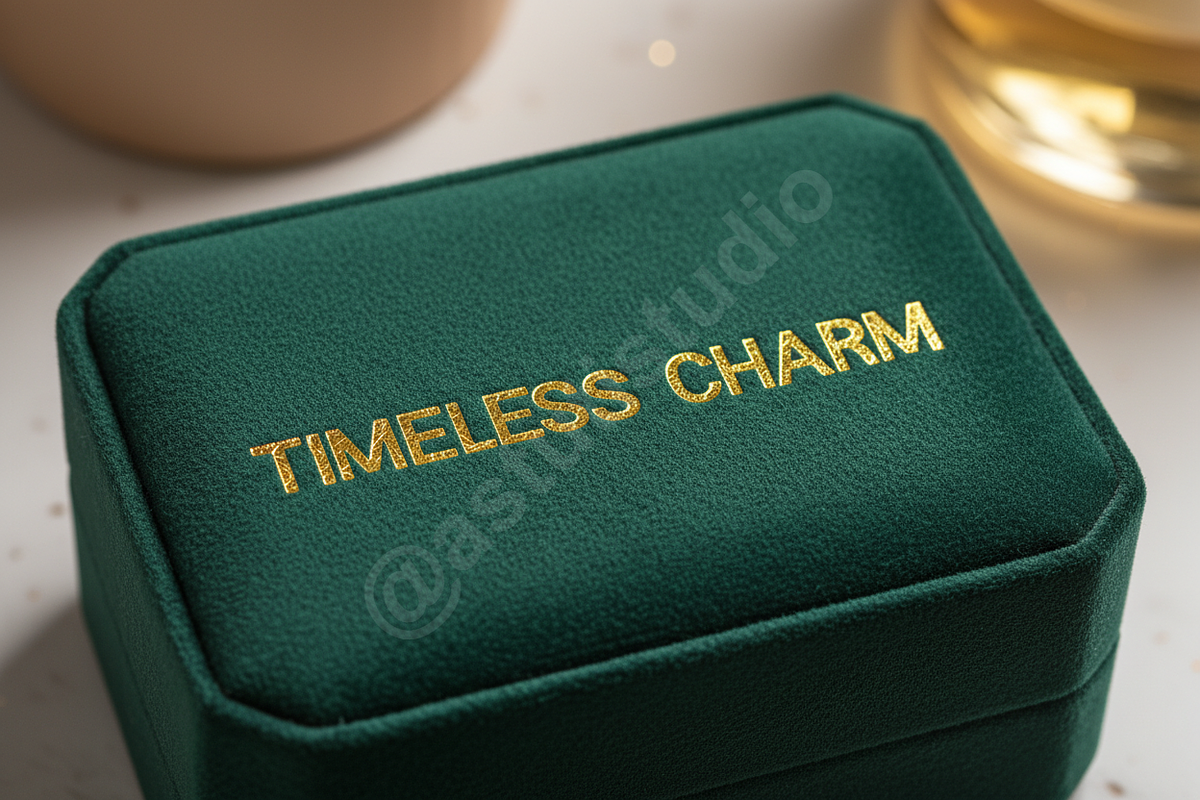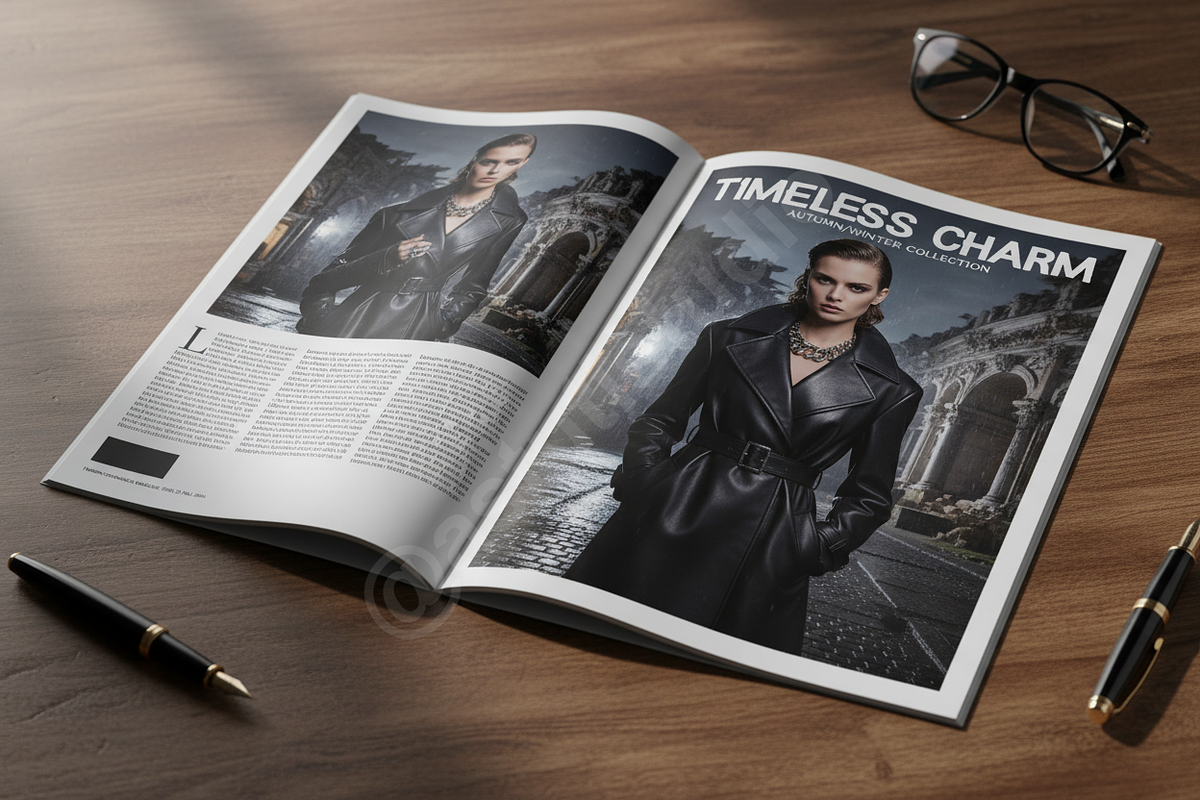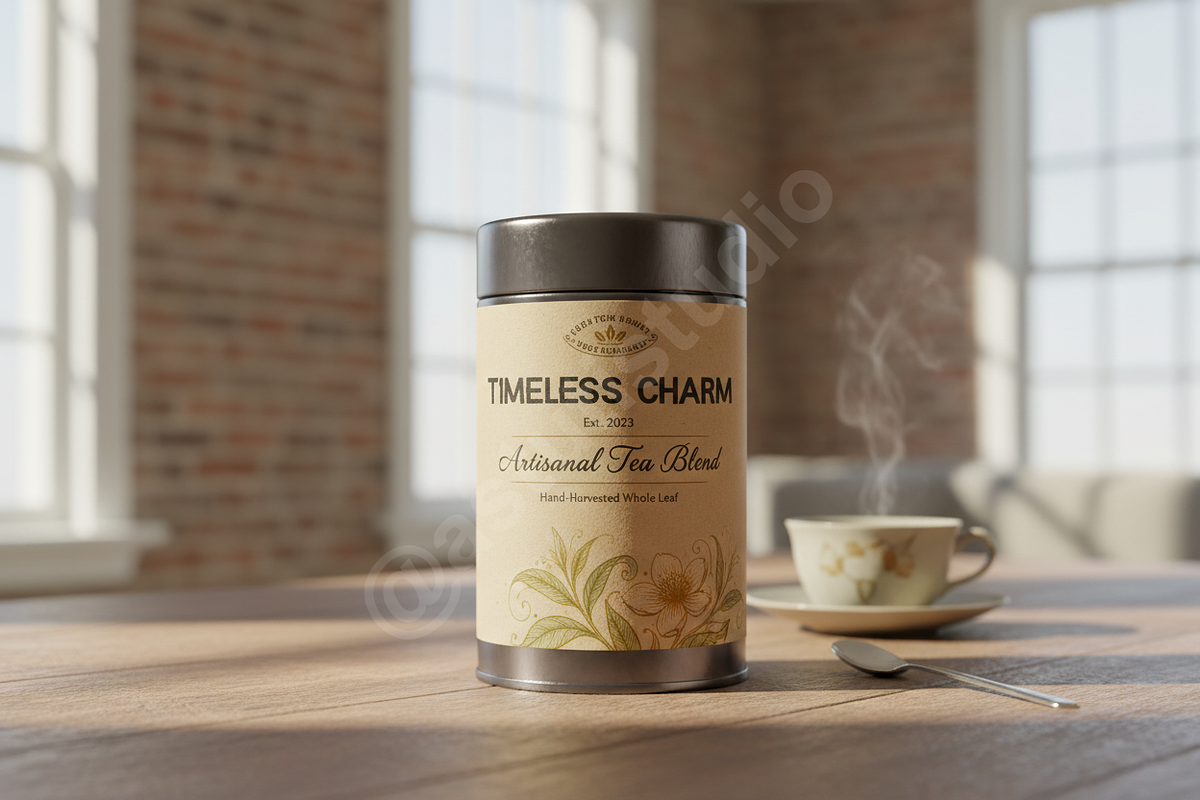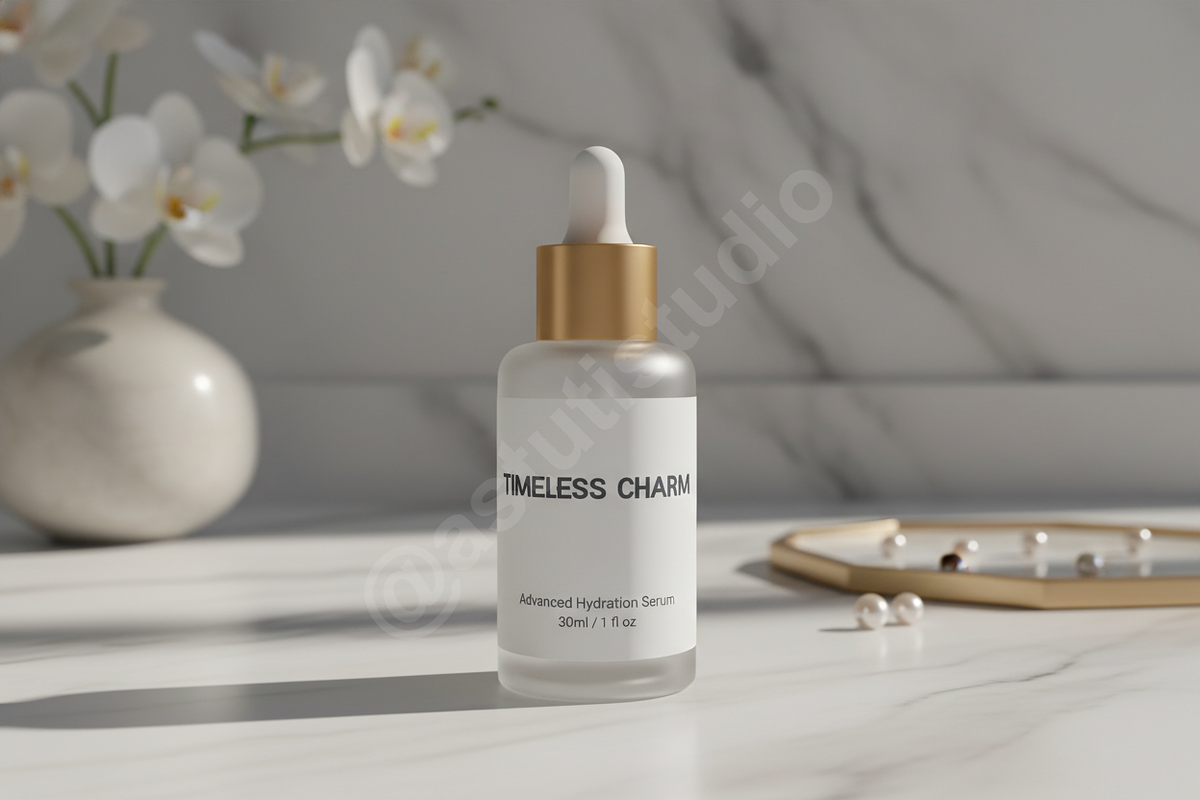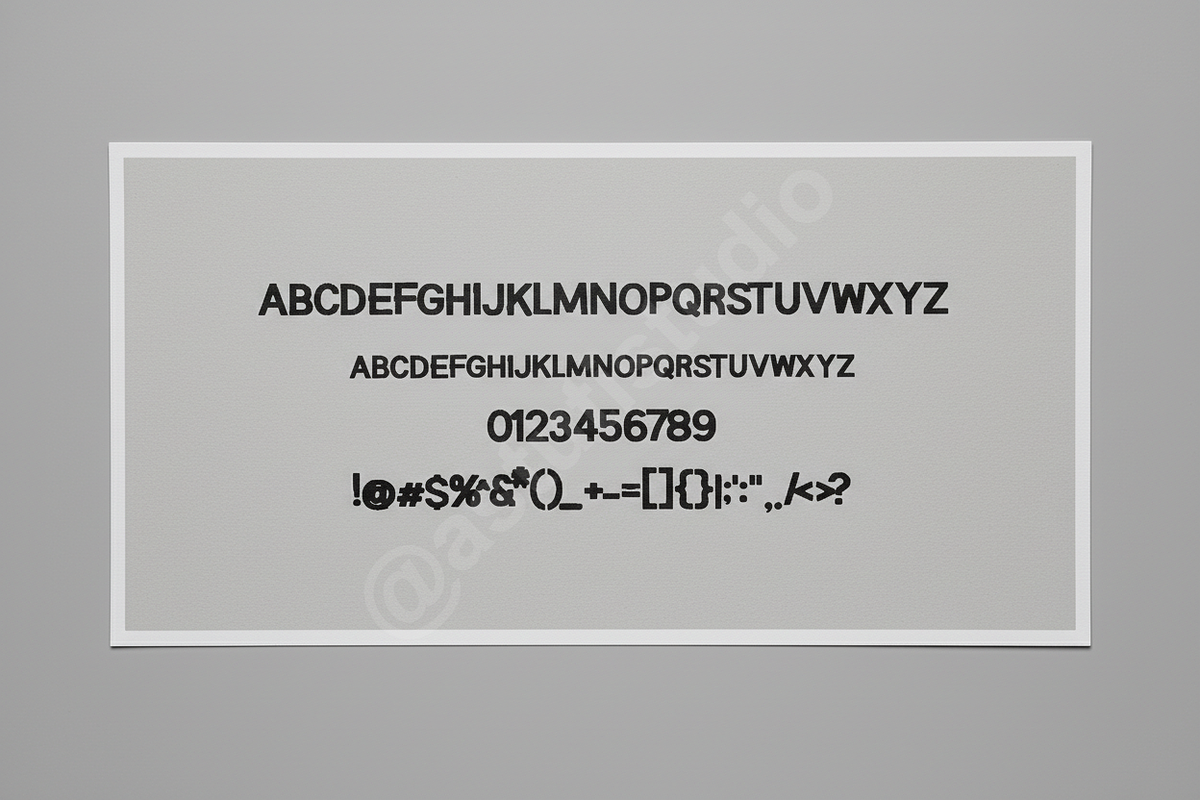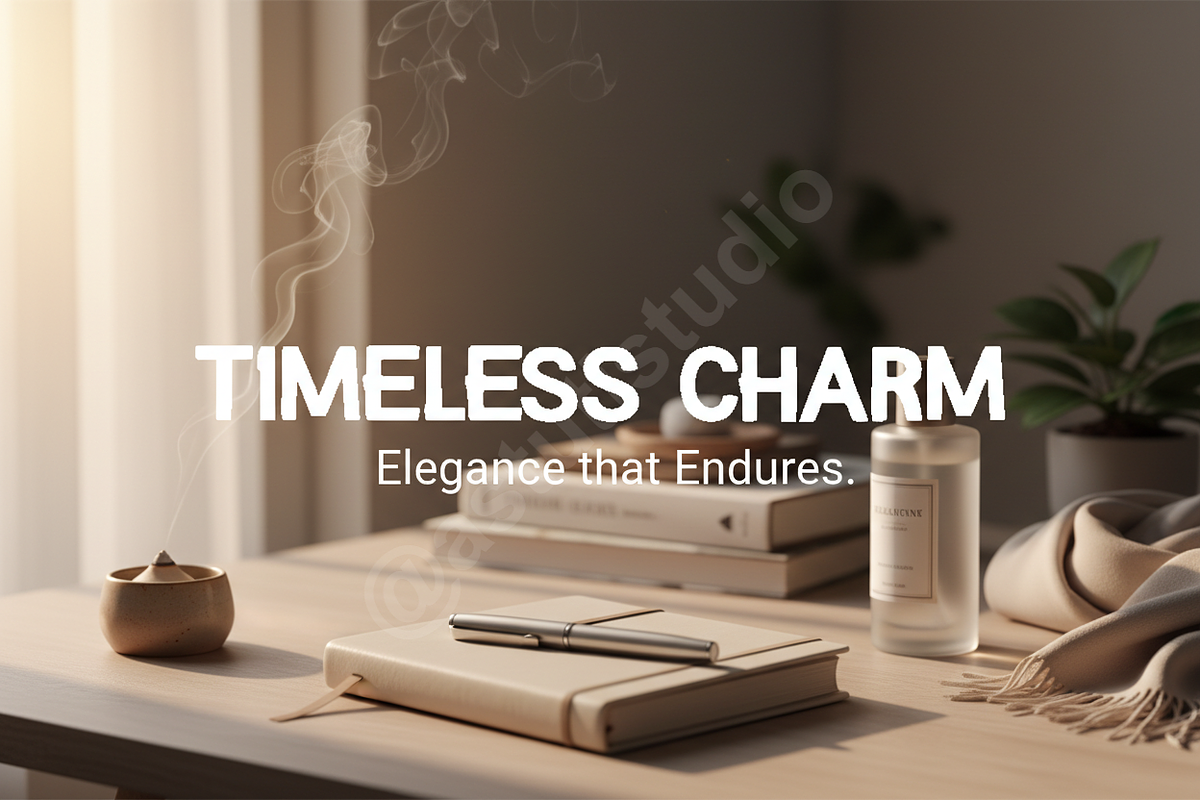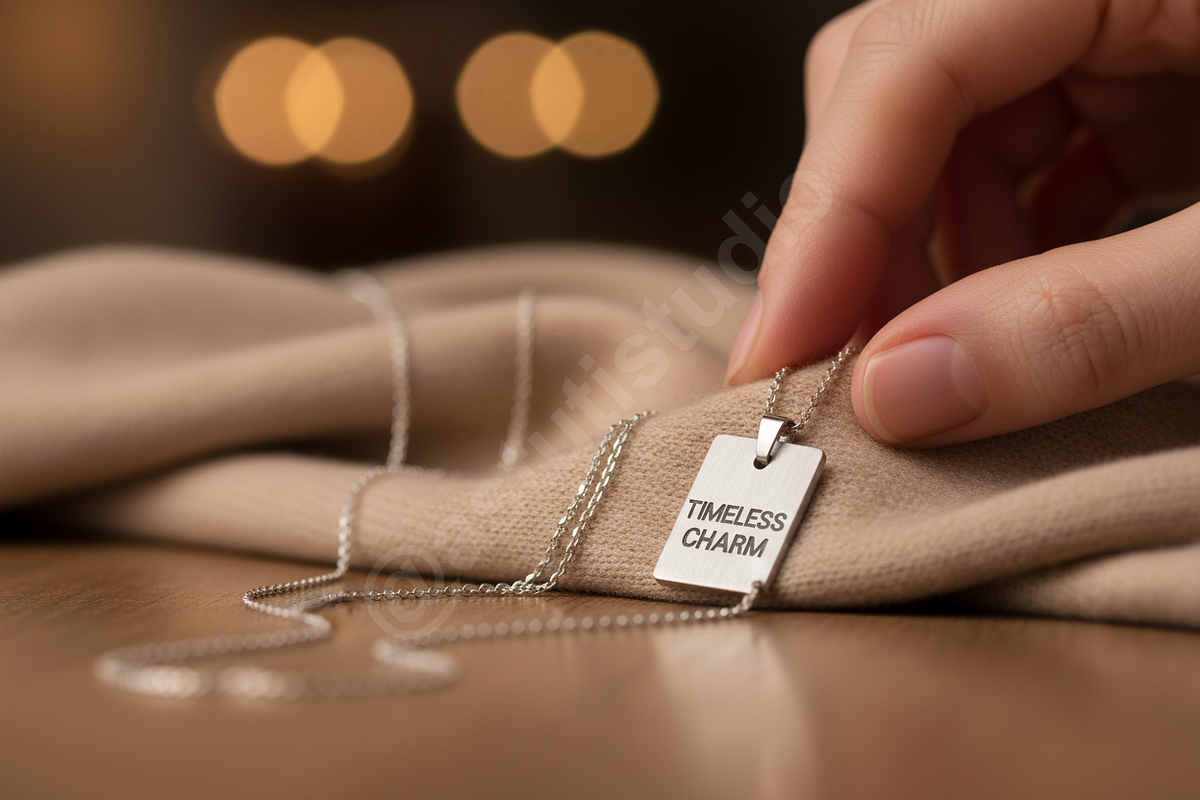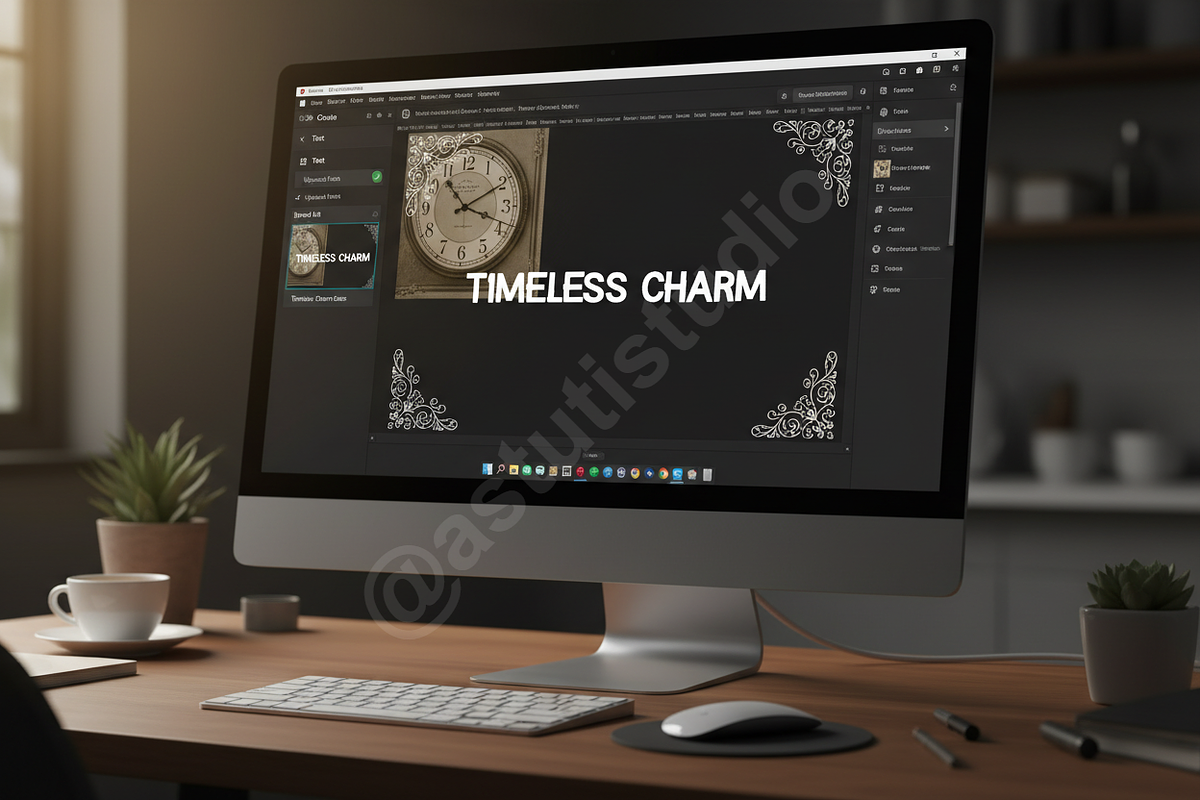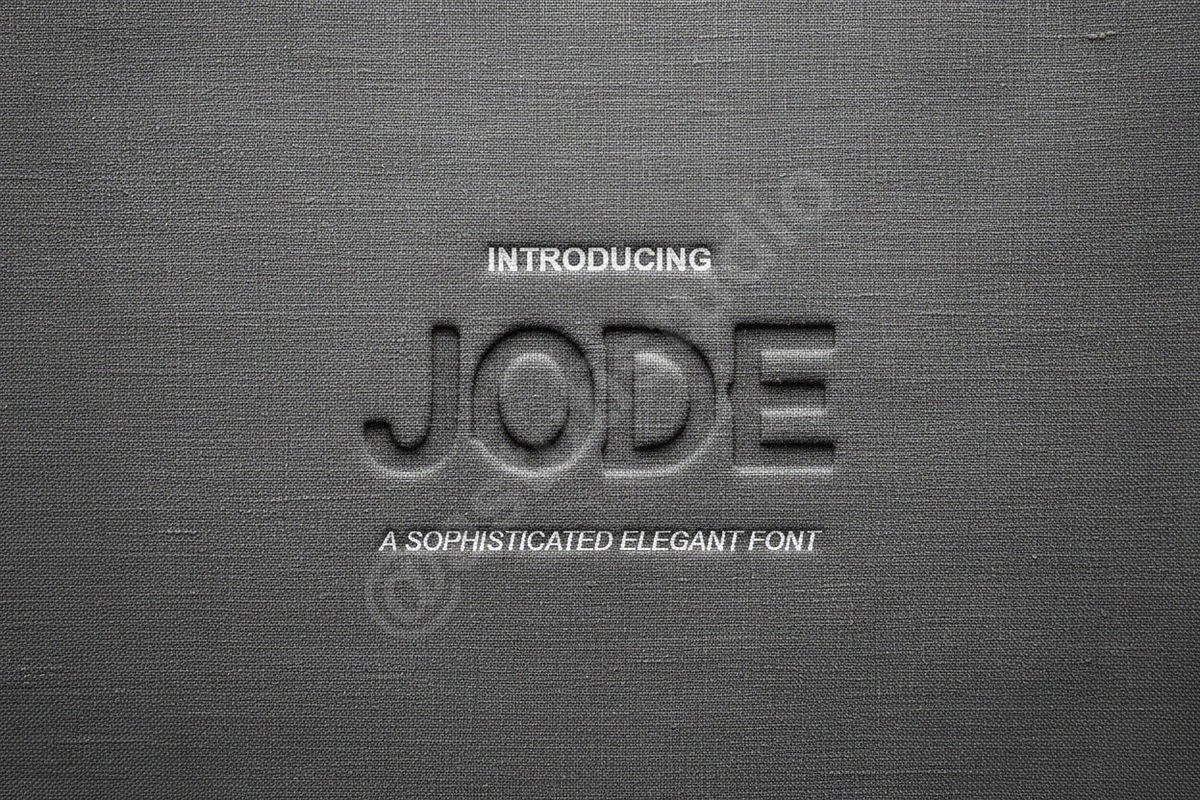
Jode | Elegant & Sophisticated Edito
INTRODUCTION Experience the refined elegance of Jode, a premium display serif designed for high-end brand identities and modern editorial layouts. Jode balances classic proportions with contemporary details, making it the definitive choice for designers seeking a luxurious aesthetic.
- Full uppercase and lowercase character set
- Extensive collection of stylistic alternates and ligatures
- Multilingual support for global accessibility
- Precision kerning and balanced spacing
- High-contrast strokes for a sharp, sophisticated look
PERFECT FOR
- Luxury branding and identity systems
- High-fashion editorial and magazine layouts
- Minimalist social media content
- Premium packaging and stationery
- Elegant wedding invitations